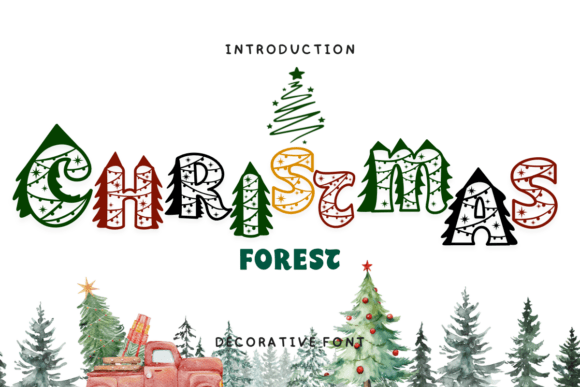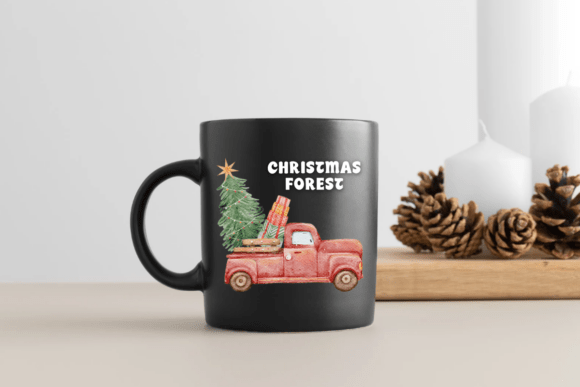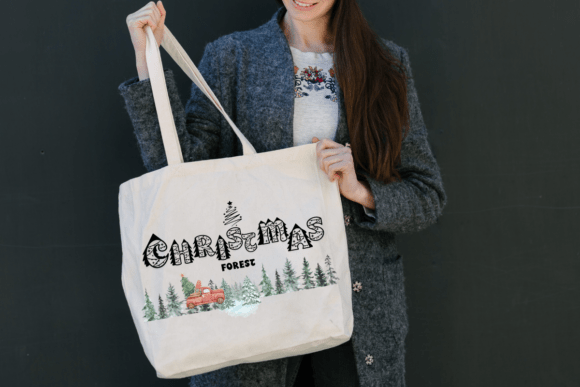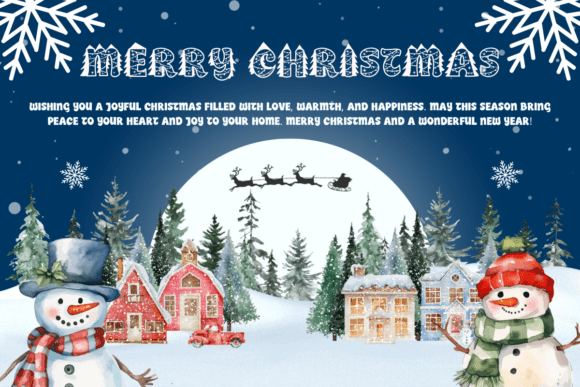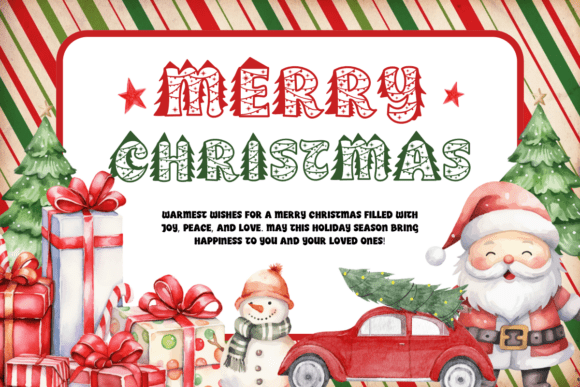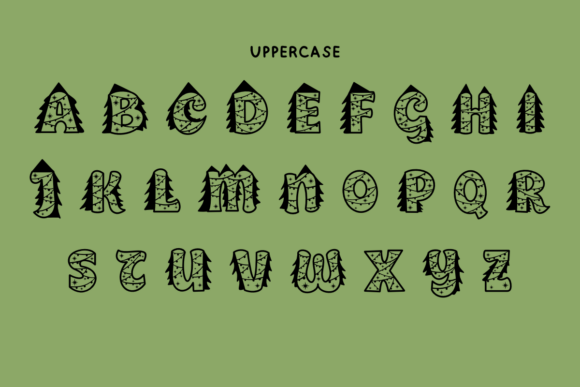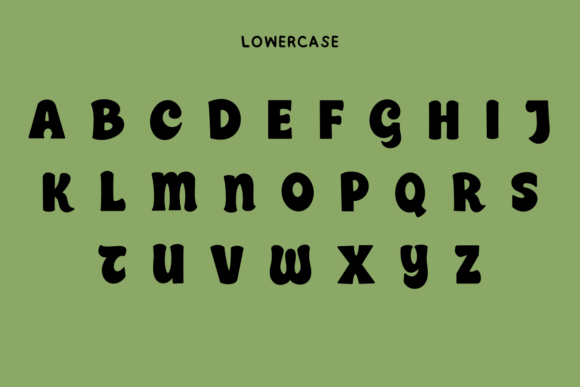
Wrap Your Texts in Winter Wonder
There’s something magical about jotting down your holiday memories in a festive font, isn’t there? The scratch of your pen on paper, the twinkle in your eyes as you write about the joy of the season – it’s a moment that stays with you long after the ink has dried. And that’s exactly where the Christmas Forest Font comes in – a charming decorative font that turns your words into bold, festive emblems.
Designed to add a touch of whimsy to your creative projects, the Christmas Forest Font is perfect for designers looking to inject a little extra magic into their work. Whether you’re crafting greeting cards, designing digital content, or simply want to add a bit of personality to your social media posts, this enchanting font is sure to breathe life into your words.
Christmas Forest Font Key Features
- Font Family: Christmas Forest Font, a unique and festive typeface designed specifically for the holiday season.
- Character Count: 250+ glyphs, including uppercase and lowercase letters, numbers, punctuation, and festive symbols.
- Unique Characteristics: Hand-drawn illustrations of forest elements, such as snowflakes, pinecones, and Christmas trees, integrated into the font design.
Review: Christmas Forest Font
Overall, I’m impressed with the whimsical and playful vibe of the Christmas Forest Font. ✨ The font’s intricate details and natural elements like leaves and snowflakes add a touch of magic to any design project. ✨ The font is perfect for holiday-themed projects, and its versatility makes it suitable for a wide range of applications, from greeting cards to web banners.
However, there are some limitations to consider. ⚠️ The font may not be the best choice for text-heavy projects, as the intricate details can make it difficult to read at smaller sizes. ⚠️ Additionally, the font’s complexity may lead to slower rendering times, especially on older systems.
- Whimsical and playful design
- Intricate details and natural elements
- Perfect for holiday-themed projects
Overall, I’d recommend the Christmas Forest Font for designers looking to add a touch of magic to their holiday projects. While it may have some limitations, its unique design and versatility make it a valuable addition to any design library.